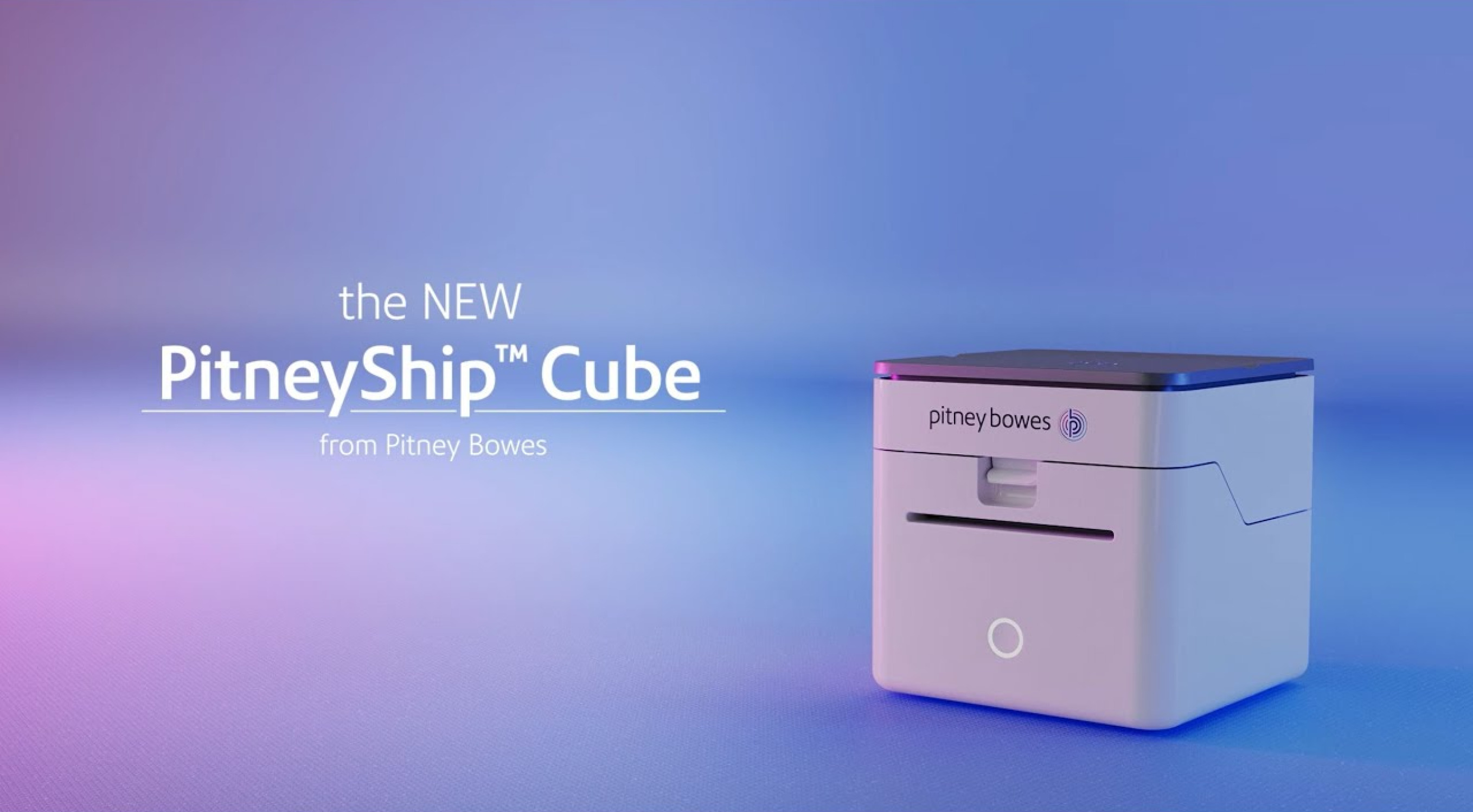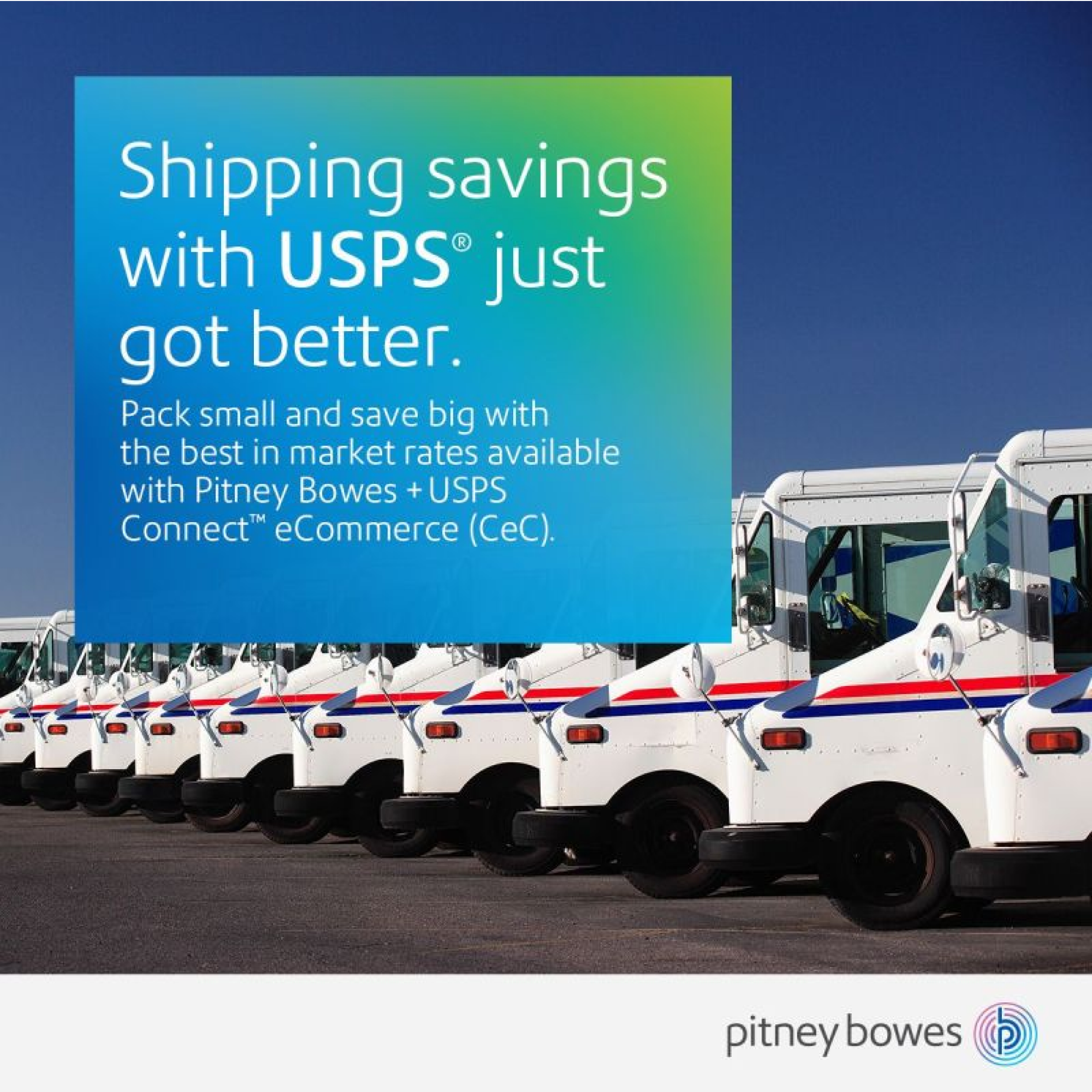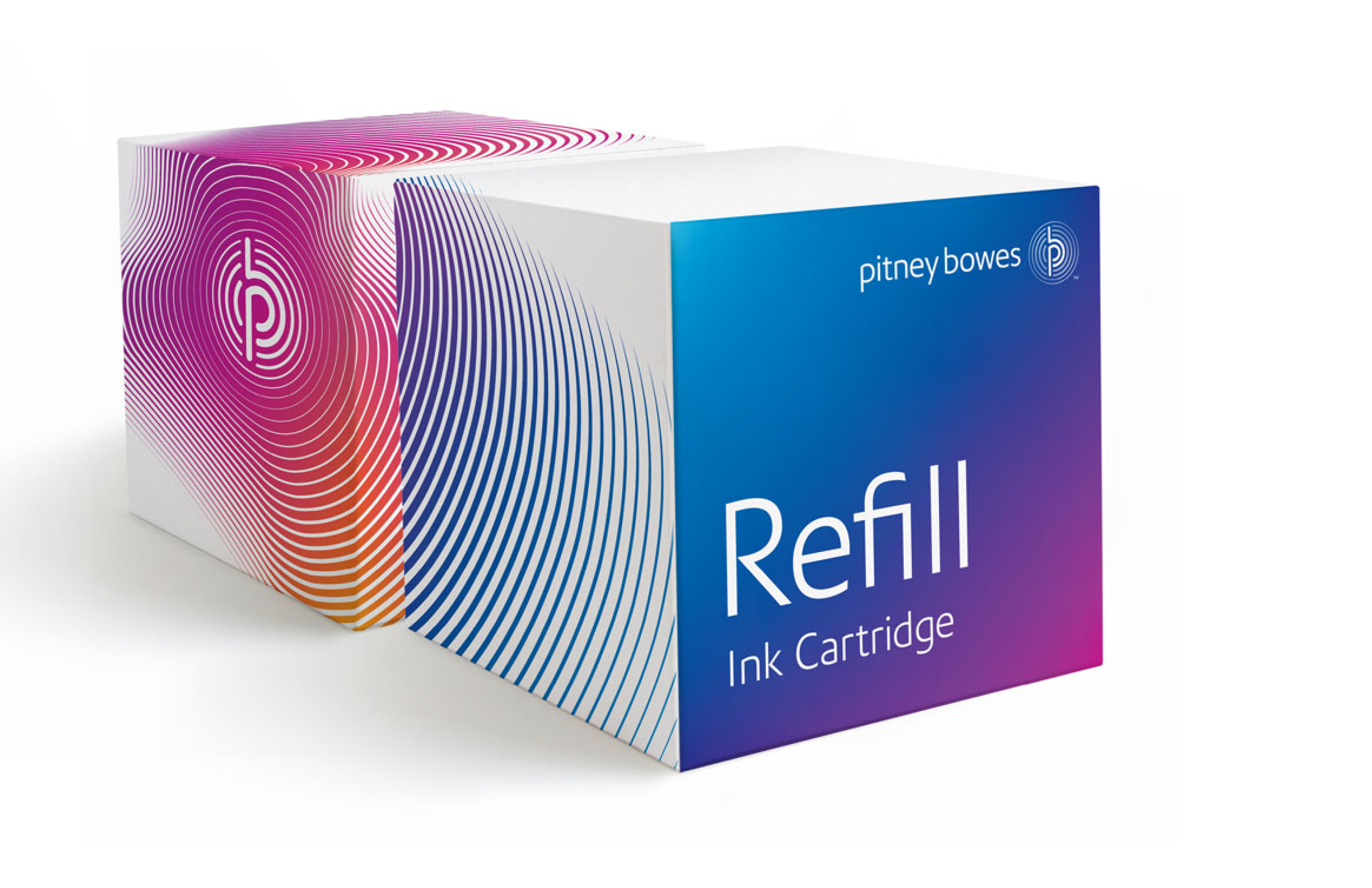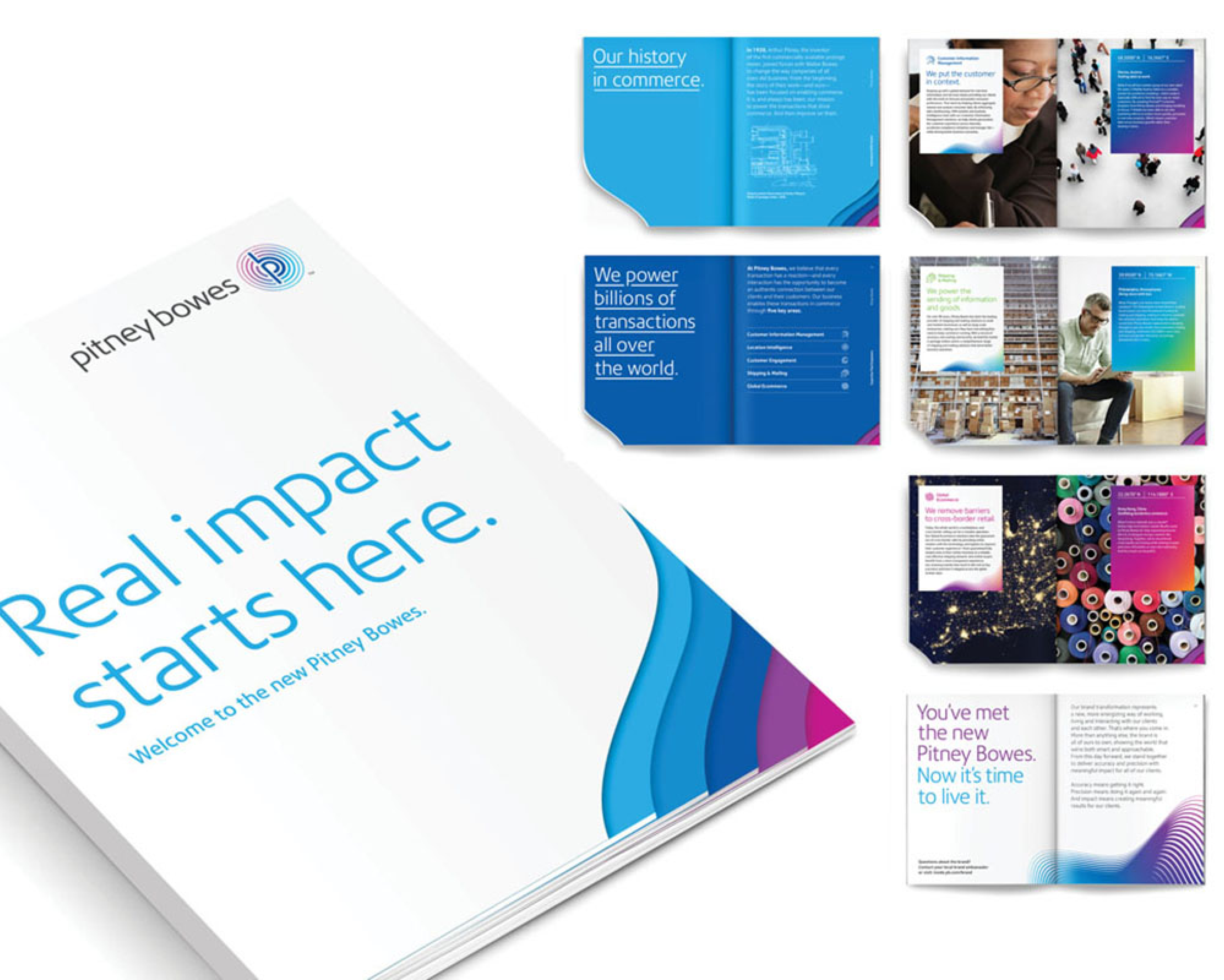
Precision Sans
A Font Modification for Pitney Bowes
For Pitney Bowes’s first visual identity overhaul in 45 years, and with severe time constraints, we worked with Futurebrand to modify our existing font family Aller, emphasizing the brand’s principles of precision, functionality, and connectivity in key design features.
Pitney Bowes Precision Sans, Font Modification, 2014